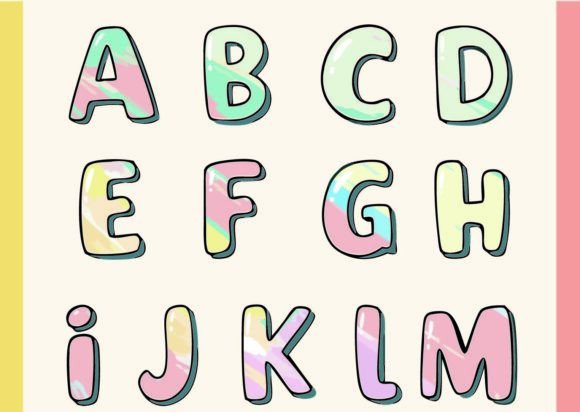
The Colorful World of Aria Font: A Designer’s Dream Come True
I’ll never forget the moment I stumbled upon Aria Font while working on a branding project for a children’s play area. My client wanted a font that was playful, vibrant, and would appeal to kids of all ages. I had been searching for what felt like hours, but nothing seemed quite right. That was until I saw Aria Font – a colorful heaven, if you will. Every single glyph has a different set of colors, and I knew immediately that it was the perfect fit for my project.
- ✅ Unique, colorful glyphs that add a pop of personality to any design
- ✅ Complex sets of paths and connections in every glyph, making each one feel like a typographic painting
- ⚠️ Some users may find the colorful glyphs overwhelming or distracting – use with caution in designs that require a more subtle approach
The Story Behind Aria Font: Designer Inspiration
While the true story behind Aria Font remains a mystery, it’s easy to imagine that its designer was inspired by the world of art and color. Perhaps they spent hours pouring over beautiful paintings, experimenting with color combinations and techniques. Whatever the inspiration, the result is a truly unique and captivating font that’s sure to add a pop of personality to any design.
| Q: What is Aria Font? | Aria Font is a color font (Opentype-SVG) with a unique, colorful glyph set. |
| Q: Is Aria Font suitable for body text? | While Aria Font is certainly eye-catching, it may not be the best choice for body text due to its colorful and playful nature. |